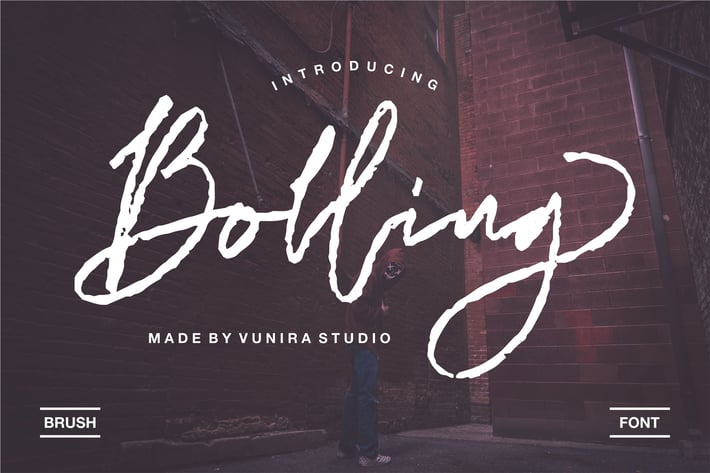
Bolling | Brush Font
Bolling | Brush Font with a calligraphy style, So beautiful on invitation like greeting cards, branding materials, business cards, quotes, posters, and more!